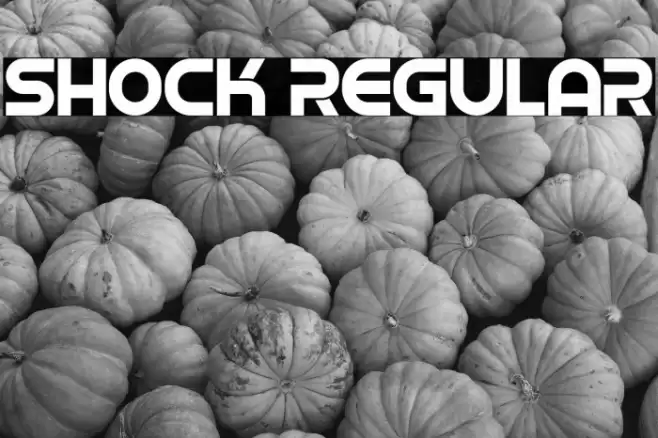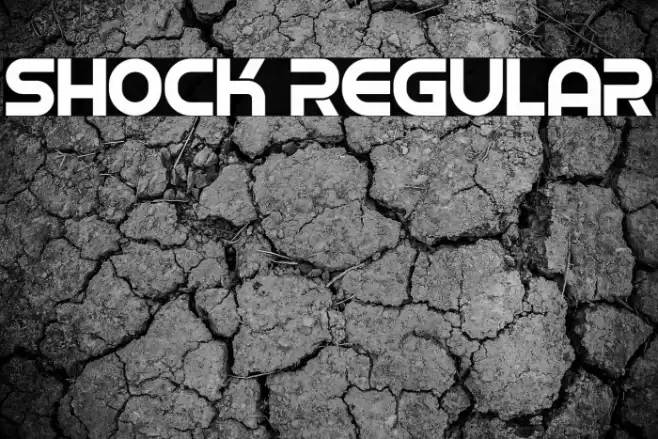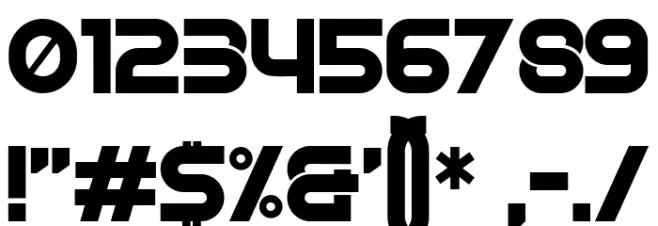
Shock Regular Font
Shock Regular Description
This font features a bold, geometric design with a futuristic aesthetic. The characters are constructed with thick, uniform strokes, giving them a strong presence. The angular cuts and sharp edges contribute to a modern, tech-inspired look. The uppercase and lowercase letters maintain a consistent style, with a focus on symmetry and balance. The numerals and special characters follow the same design principles, ensuring a cohesive appearance across all glyphs. This font is ideal for projects that require a bold and impactful visual statement.
A bold, geometric font with a futuristic and tech-inspired design from Uncategorized fonts.
- Proposed Projects: Ideal for technology branding, sci-fi posters, video game titles, and modern advertising campaigns.